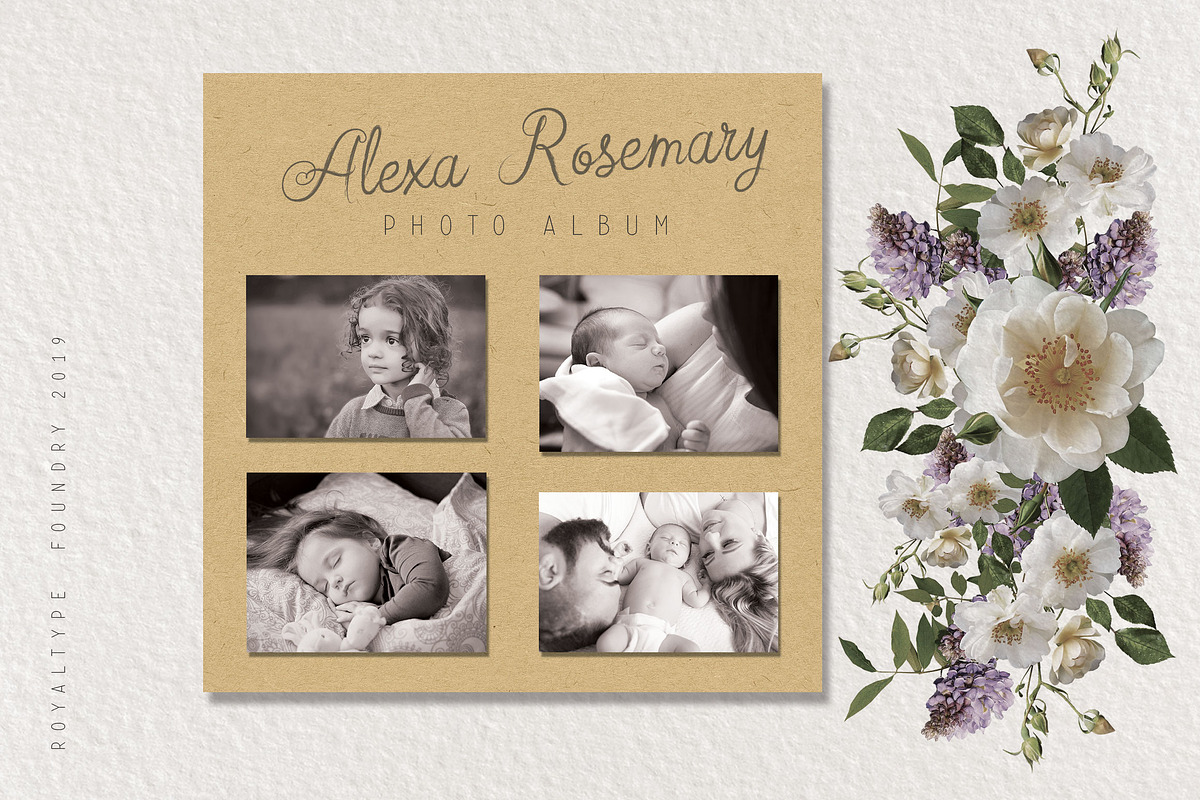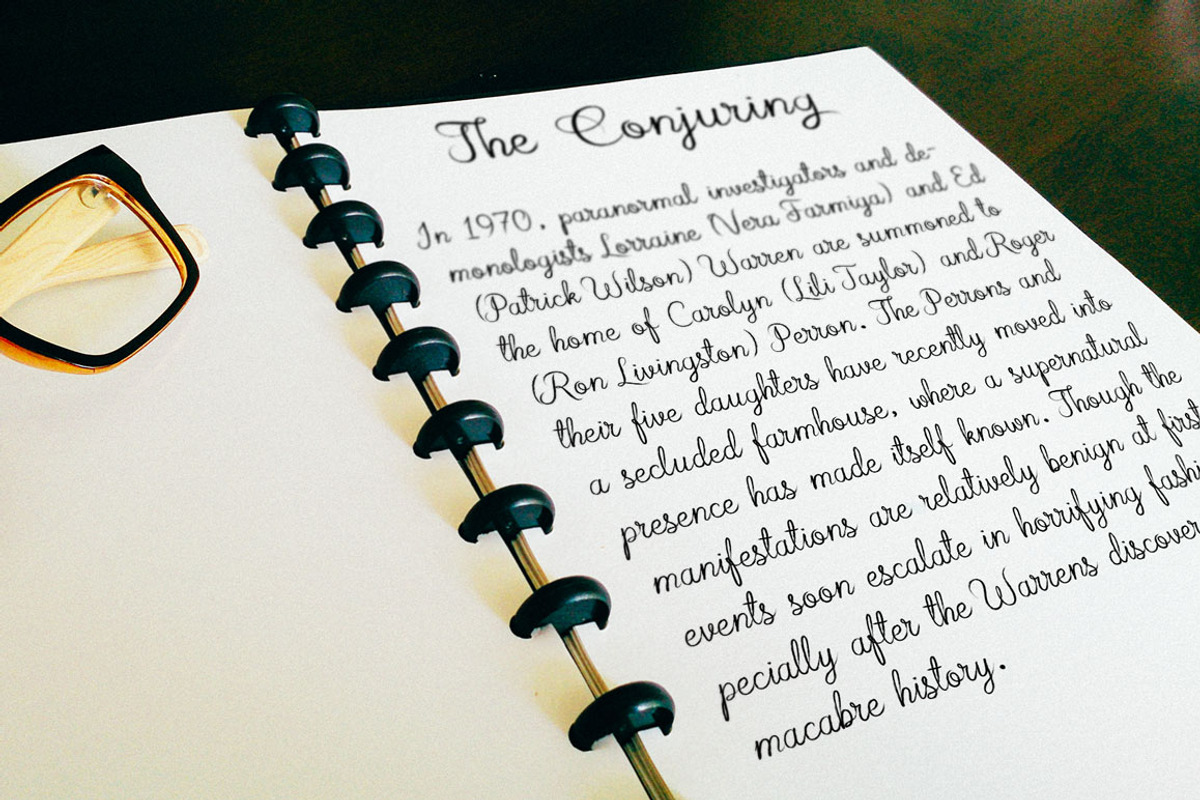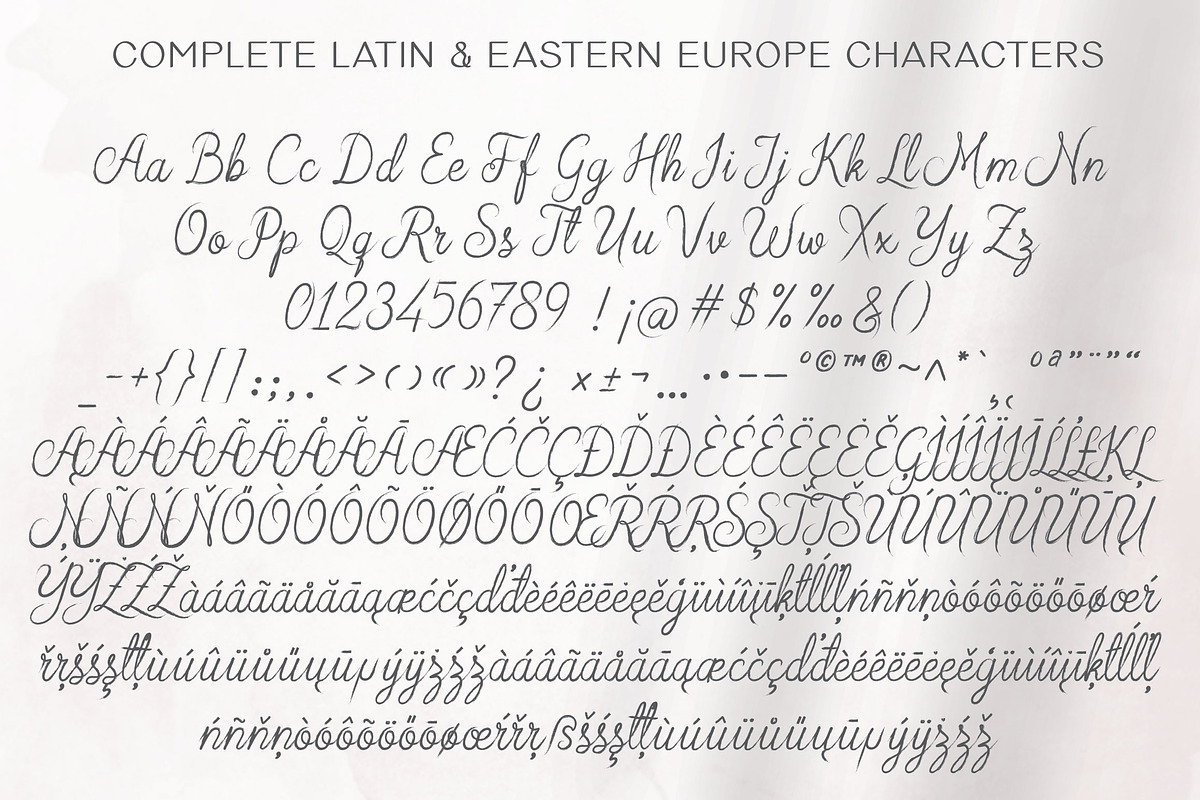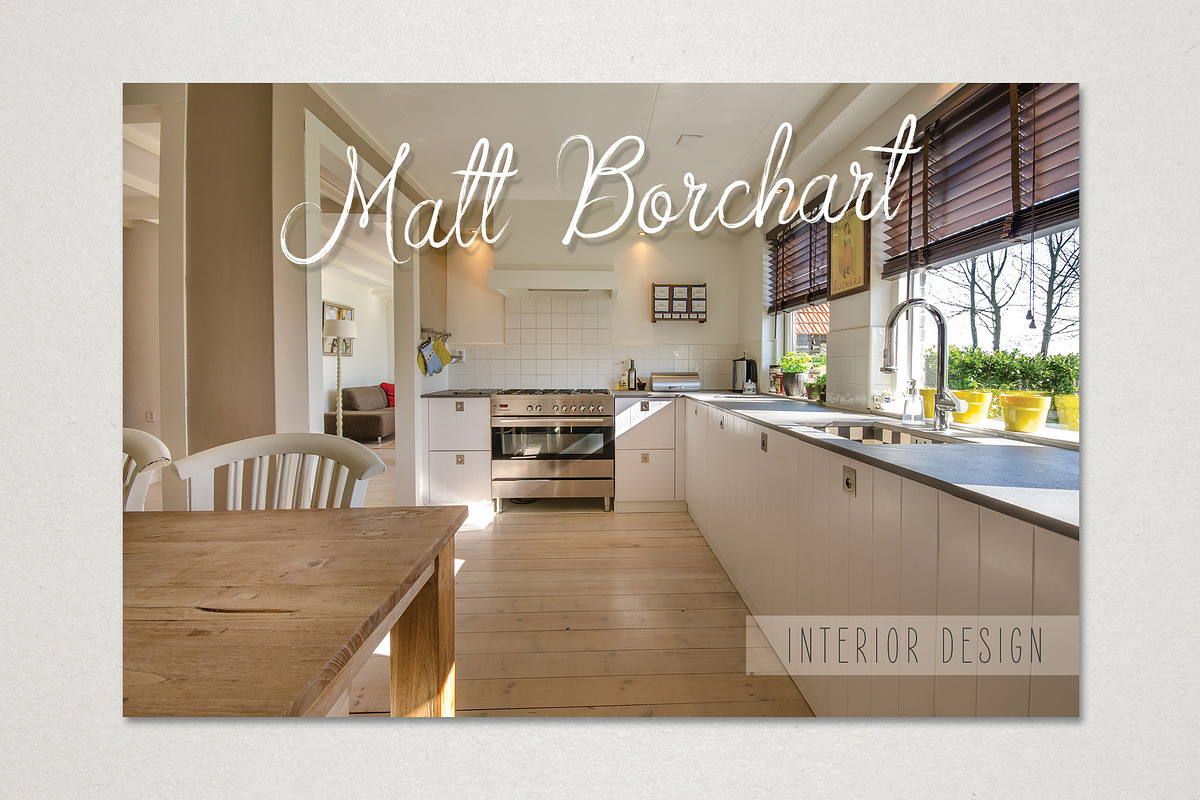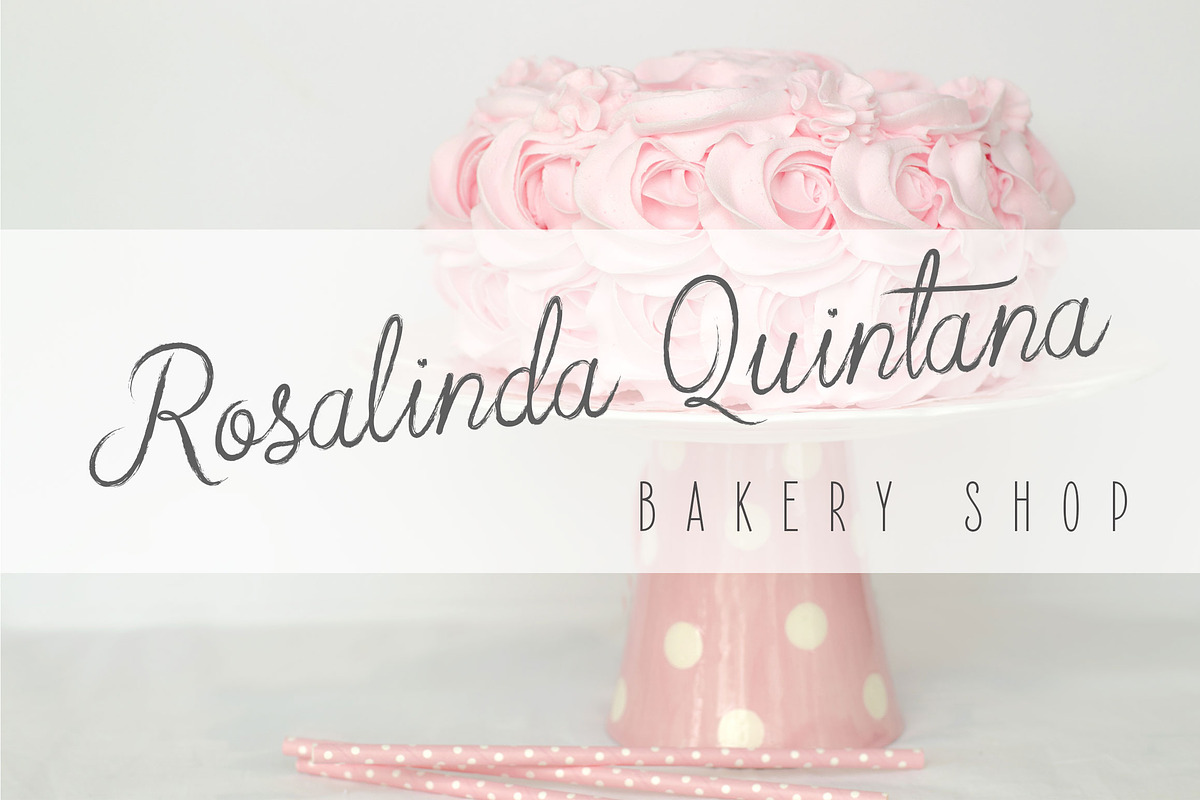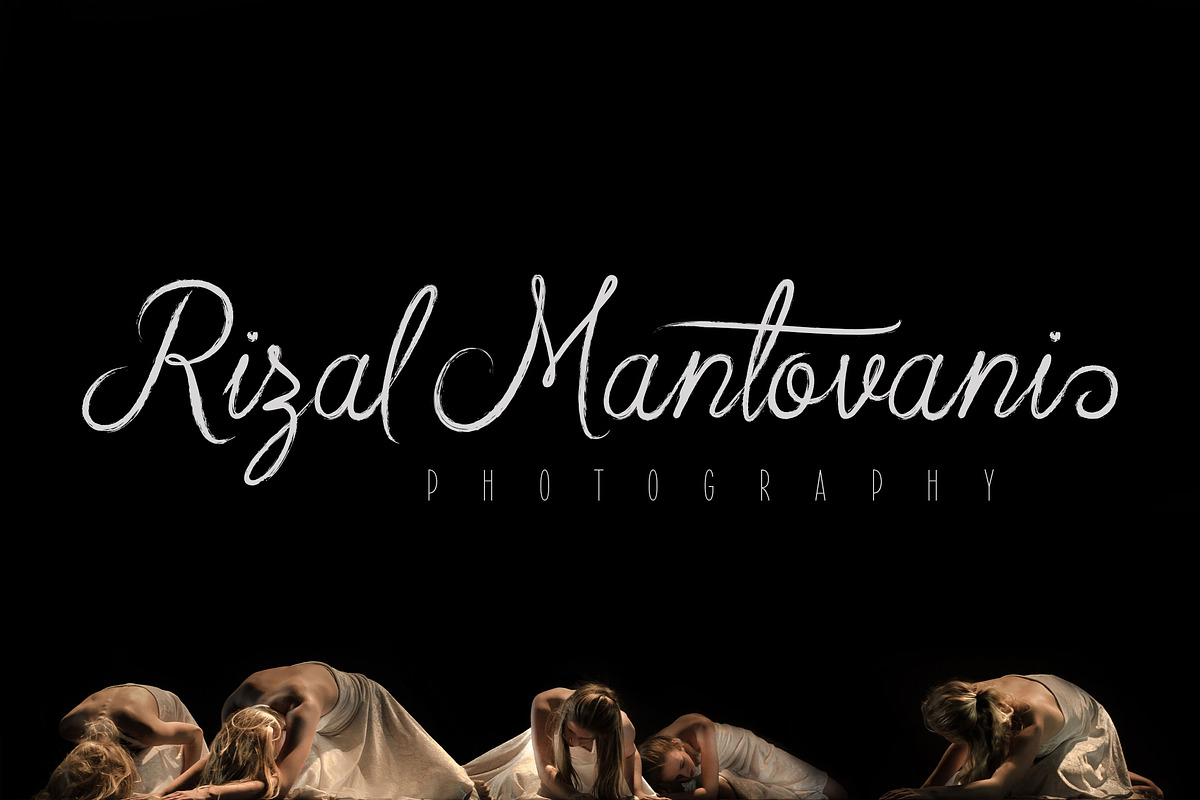
Arabian Script | Brush Textured Font
Introducing my new beautiful brush script font! It has semibold weight with textured shape, will nice for your wedding invitation, product package, logo, title, subtitle, flyer, quotes, etc.
117 alternate characters
Support to Latin and Eastern Europe characters
1 different alternate for each uppercase and lowercase character, so every pair can be always different
4 left side portable swash and 4 right side portable swash
Initial and final character
Standard Ligatures (activate Standard Ligatures)